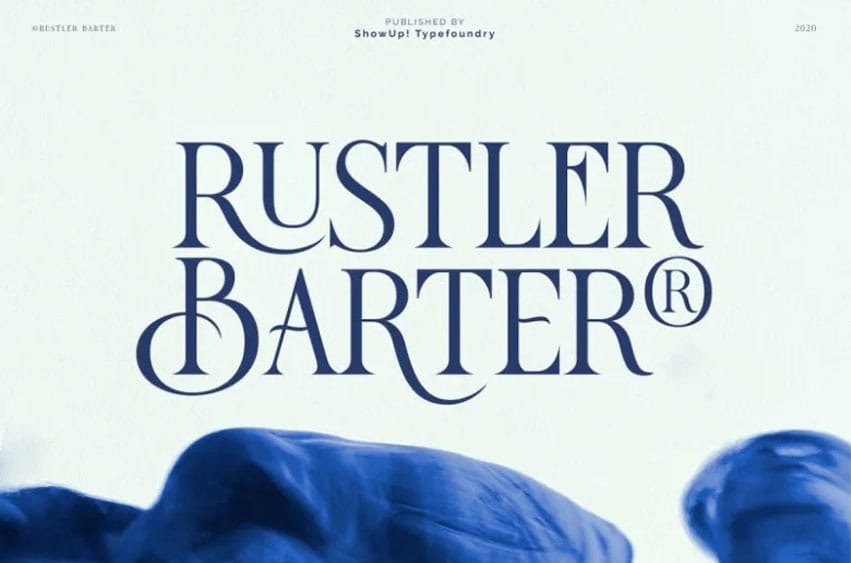
Rustler Barter Font is an elongated serif typeface with a unique wedge serif font guaranteed to be noticed! A bit retro, but also contemporary, Rustler Barter font is perfect as a logo, editorial and web design. The distinctive sharp serifs paired with slender strokes emit a the bold, mid-century architecture vibe.
This contemporary serif typeface has serifs. It is perfect for beautiful logos and titles, the Rustler Barter can be paired beautifully with other fonts and work well with whatever that you are working on.